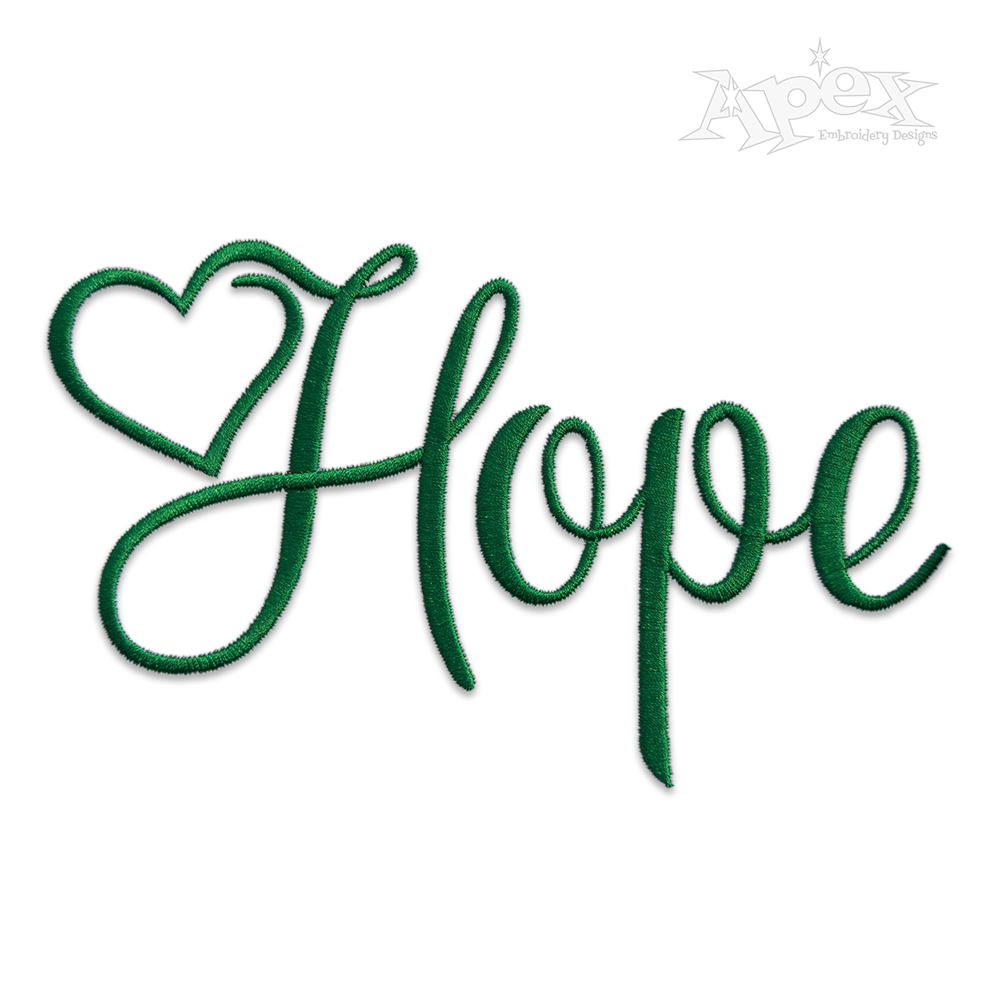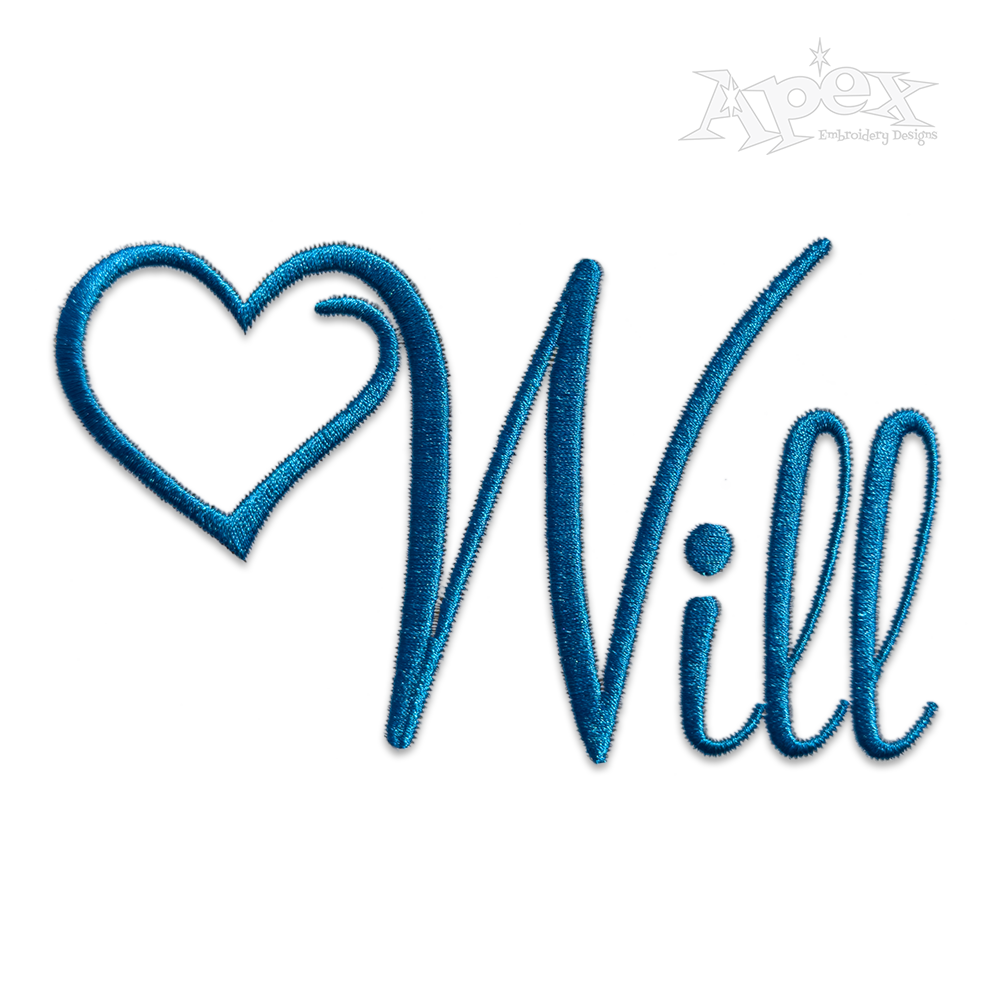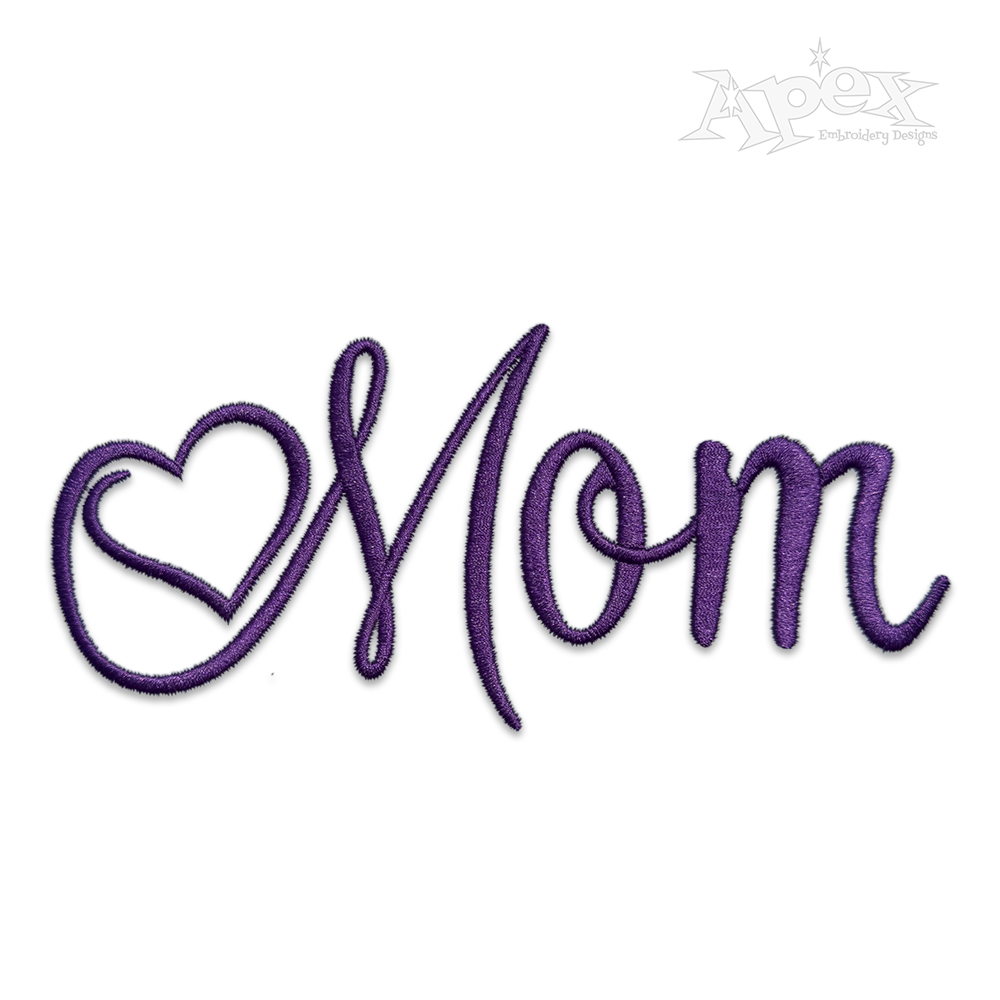
Love Heart Script Embroidery Font
Heart Shaped Script Machine Embroidery Fonts. Love Letters Alphabet Lettering Art. Great for Valentine's Day Gift Ideas.